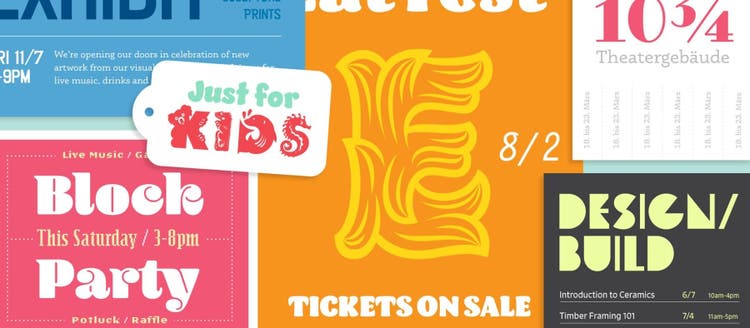
Your Adobe Creative Cloud subscription gives you access to the thousands of fonts available in Adobe Typekit. You could spend days combing through the various typefaces from our foundry partners to find one that perfectly matches the tone of your project. But if you need to design something quickly, how do you find the perfect font without searching through the entire library?
Our curated font packs may be just the saving grace you’ve been asking for. These packs give you a teaser of what Typekit has to offer, and help you quickly and easily find fonts that fit your project.
The Get Folks Together font pack features a bold, fun variety of fonts perfect for blasting the word about local events like vintage clothing sales, movie nights in the park, or elementary school carnivals. Any of these fonts will make your designs stand out and make viewers take notice.
Explore these fonts for ideas of how you can use them for your own projects, and check out our other font packs to see what Typekit has to offer.
By Elí Castellanos Chávez, Sudtipos
This eye-catching font from the foundry Sudtipos combines the elegance of decorative serif fonts with the boldness of a slab font. The typeface looks almost as though it were created using a paintbrush, and the informal tone makes it a great choice for neighborhood events.
Potential uses:
- Flyers for barbecues or outdoor parties.
- Local announcements, like the opening of a dog park.
By Dalton Maag
From a distance, Blenny looks like a solid black, heavy typeface, sure to catch viewers’ attention. As they come closer, however, they notice the highly detailed use of white space. The weight of the font pulls people in, and the quirky intricacies of the letters leave them intrigued.
Potential uses:
- Garage sale posters.
- Thrift store flyers.
By Craig Frazier, Adobe Originals
Critter is a stylized and decorative font that doesn’t take itself too seriously. Every letter in the alphabet is shaped like an animal — the “S” is a seahorse, the “T” is the face of a tiger, the “F” contains the silhouette of a flamingo, and so on. Although it is an informal and playful font, it still retains readability and adds an interesting element to any design.
Potential uses:
- Childrens’ parties.
- Animal-themed library events.
- Family day at the zoo.
By Laura Worthington, Laura Worthington Type
Fairwater’s contrasting thick and thin lines give this font a stylish, vintage vibe. The asymmetrical shape of the letters recalls the Art Deco style and conveys a sense of high fashion and glamorous entertainment.
Potential uses:
- Upscale vintage clothing sale.
- Movie night in the park.
By Lopetz, P22 Type Foundry
P22 Type Foundry focuses on preserving older fonts with historical relevance, including this Hamilton Wood Type. The typeface is based on a woodcutting that has been revived for digital use. The lack of counter space inside the letters would have made carving easier, and in a digital format gives the font a stark simplicity, reducing each letter to a collection of slightly off-balance geometric shapes.
Potential uses:
- Summer computer camp.
- School STEM club.
- Sci-fi night at the library.
By James Edmondson, OH no Type Co.
Simply put, to some the font looks like it has hair all over it. To others, it appears to be crafted from overgrown plant foliage. It’s an outlandish, abstract, ornamental font that seems unlikely to find a place in any kind of design. But if you use it right, Hobeaux Rococeaux can make a big impact, and your poster will not soon be forgotten.
Potential uses:
- Residential haircutting or pet grooming service.
- Monster-themed party.
- 1970s- or retro-themed event.
- Flyer for a garden maze.
By Zuzana Licko, Emigre
Two LoRes fonts are contained in this pack: 9 Wide Bold Alt Oakland and 22 OT Serif Bold. These particular variations of the LoRes typeface depict an 8-bit style, and would look at home as the text of an arcade game like Galaga or Tetris. The two LoRes options are sure to generate a feeling of nostalgia for any children of the 80s who see your design.
Potential uses:
- Throwback game night.
- School computer club.
By Jason Walcott, Jukebox
This island-inspired font makes up its own typeface rules. It mixes lowercase and uppercase letters within words and changes the shape of some letters based on where they set. There are two versions of the letter “R,” for instance — an “R” at the beginning of the word has a serif at the top left, while an “R” placed anywhere else is serif-free. The typeface is fun and inventive but also easy to read and narrow, so you can use it to convey a lot of information in a small space.
Potential uses:
- Neighborhood luau or summer party.
- Visiting speaker.
By Laura Worthington, Laura Worthington Type
This bouncy typeface almost appears to move as it crosses the page. The thick asymmetrical lines of the letters give the font a childlike feel. It’s bold enough to catch the eye of passersby but inviting enough to inspire positive reactions.
Potential uses:
- Additional details.
- Descriptive language.